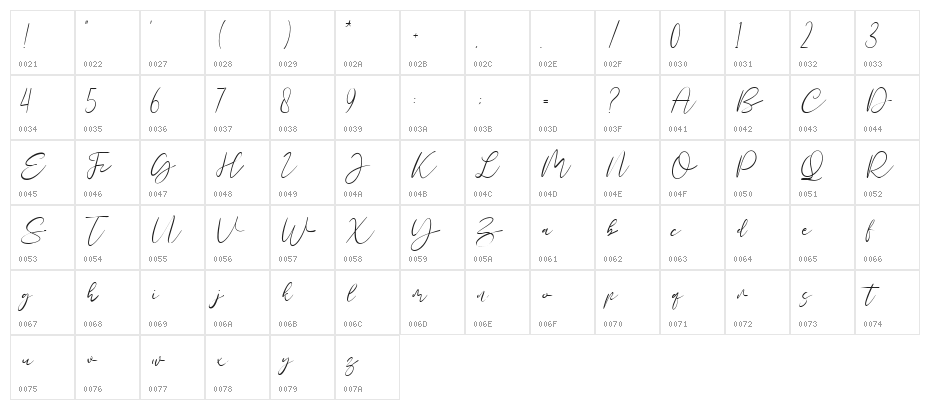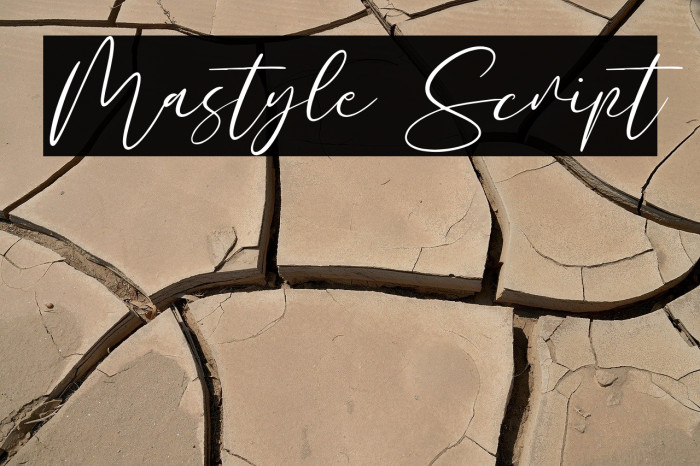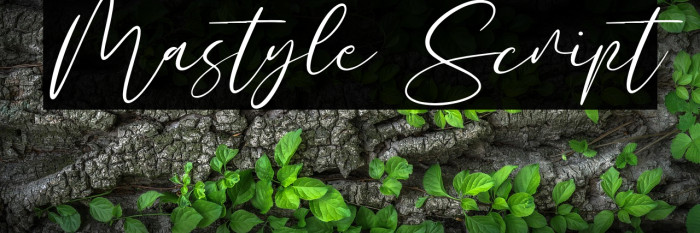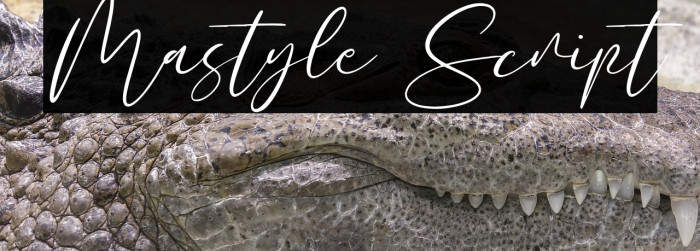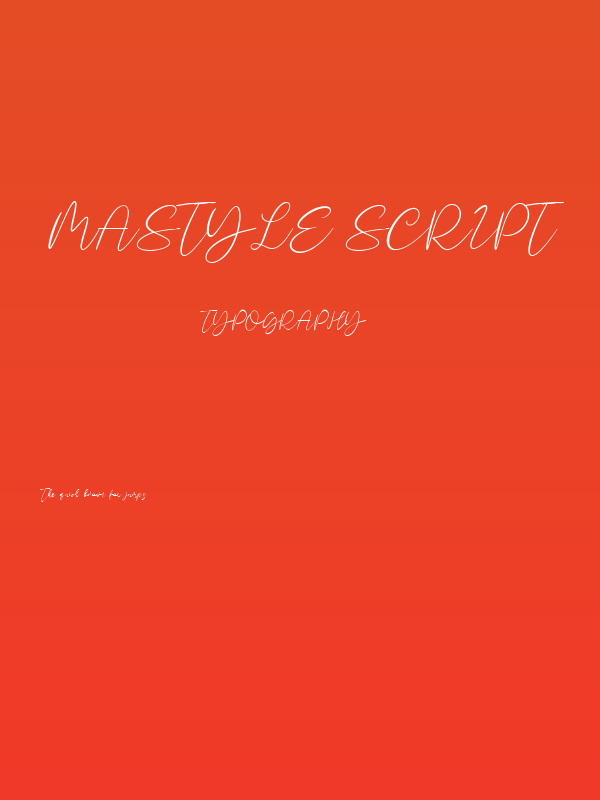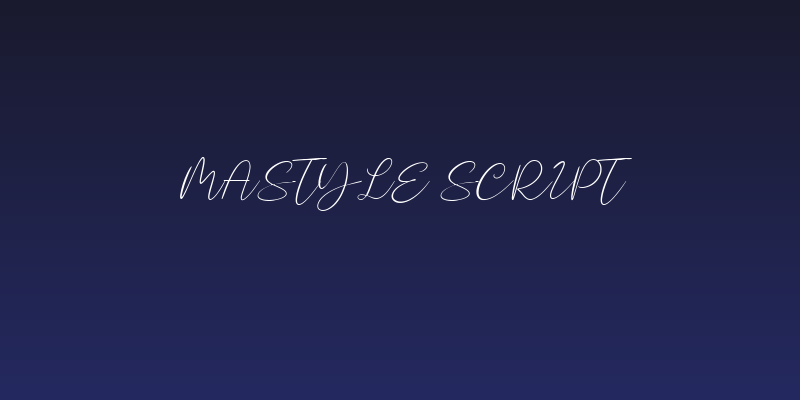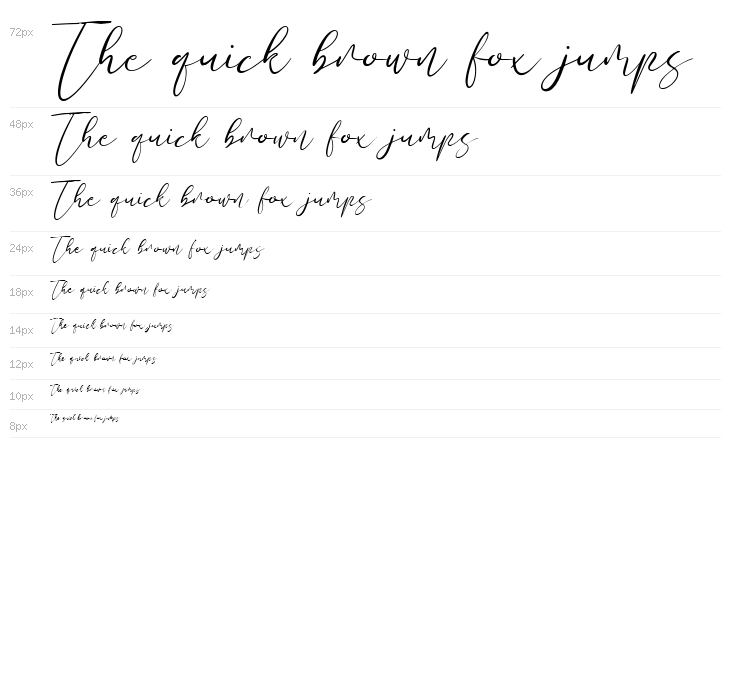
Mastyle Script Font
Mastyle Script Description
This font is a beautifully crafted script typeface that exudes elegance and fluidity. The characters are interconnected with smooth, flowing strokes, giving it a handwritten appearance. The uppercase letters are slightly more elaborate, with gentle curves and loops, while the lowercase letters maintain a consistent, graceful style. The numerals are designed to match the overall aesthetic, featuring similar curves and a balanced structure. Special characters are thoughtfully integrated, maintaining the font's cohesive look. This typeface is perfect for projects that require a personal, sophisticated touch.
| Overall Style | Elegant, Handwritten |